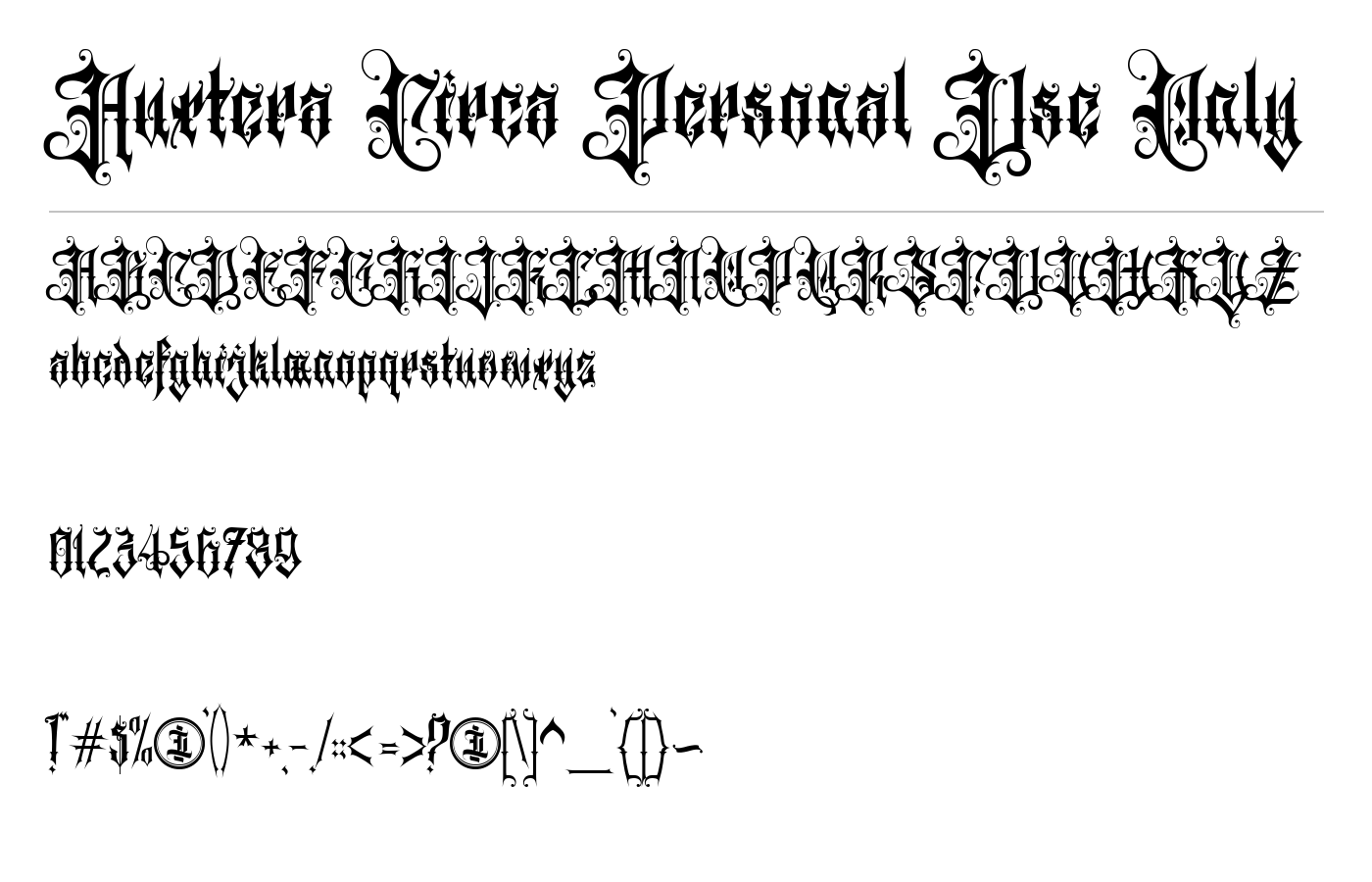
Auxtera Circa is a highly decorative blackletter typeface with intricate flourishes and sharp, angular strokes that give it a strong gothic and vintage character. Its bold weight and condensed form create a striking presence ideal for dramatic headlines, logos, or branding that aims to convey tradition, mystery, or an old-world aesthetic. This font is best suited for display purposes where its elaborate design can be appreciated without compromising readability.
Auxtera Circa Personal Use Only Font
About Auxtera Circa Personal Use Only Font